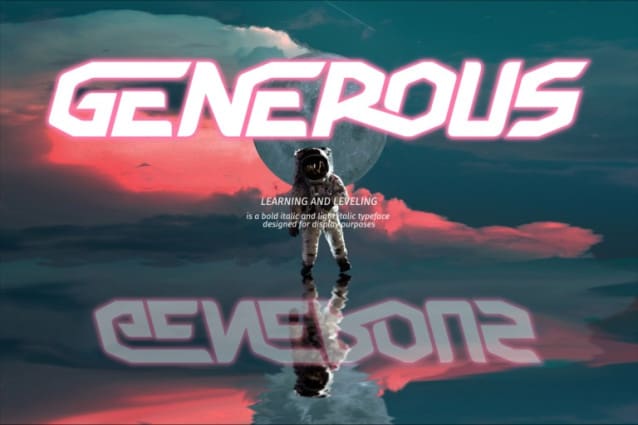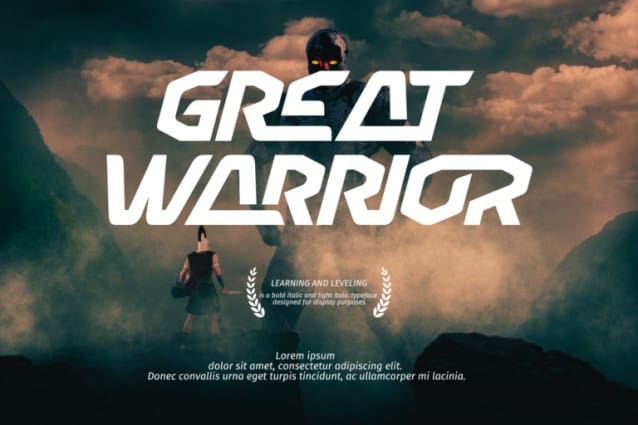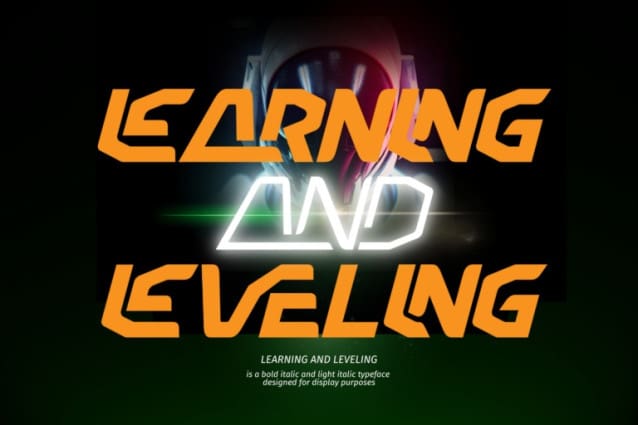
Learning and Leveling Font is A Modern Futuristic Techno Font, Cubic Sport Font With Unique Shape. Designed for maximum impact, It’s features straight upright and wide italic letters, modern letter cutouts, and a dynamic slant that exudes power and speed. Ideal for fast car racing sports titles, running matches, cycling, automotive game logos and monograms or other modern dynamic text.
Learning and Leveling was built with OpenType features and includes 100 ligatures, alternate, numbers, punctuation, and it also supports other languages.
AC AD AL AN AR AS AT AU AV BE CA CE CH CO CT DE DI EA EC ED EE EL EM EN EP ER ES ET FE FO FR GE HA HE HI HO IE IC IL IN IO IR IS IT JU KE LA LE LI LL LO LY MA ME MI NC ND NE NG NO NT NS OC OF OM ON OO OP OR OT OU OW PA PR RA RD RE RI RO RS RT SE SH SI SO SS ST TA TE TH TI TO TR TT UM UN UR VE WI WO